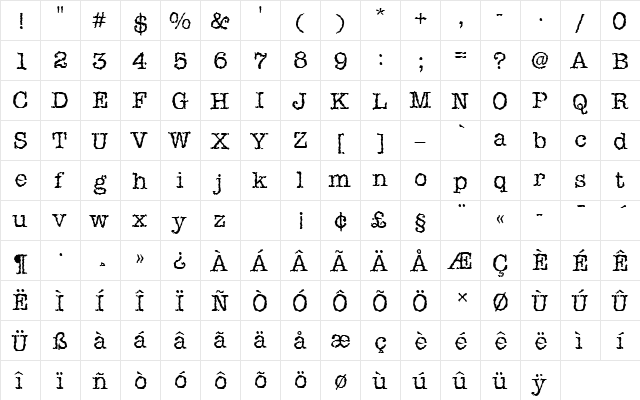
IceAgeDRo1 Regular
Design Context for IceAgeDRo1 Typeface
IceAgeDRo1 takes a measured approach to typography — its balanced proportions and neutral character make it a reliable workhorse for both digital and print work.